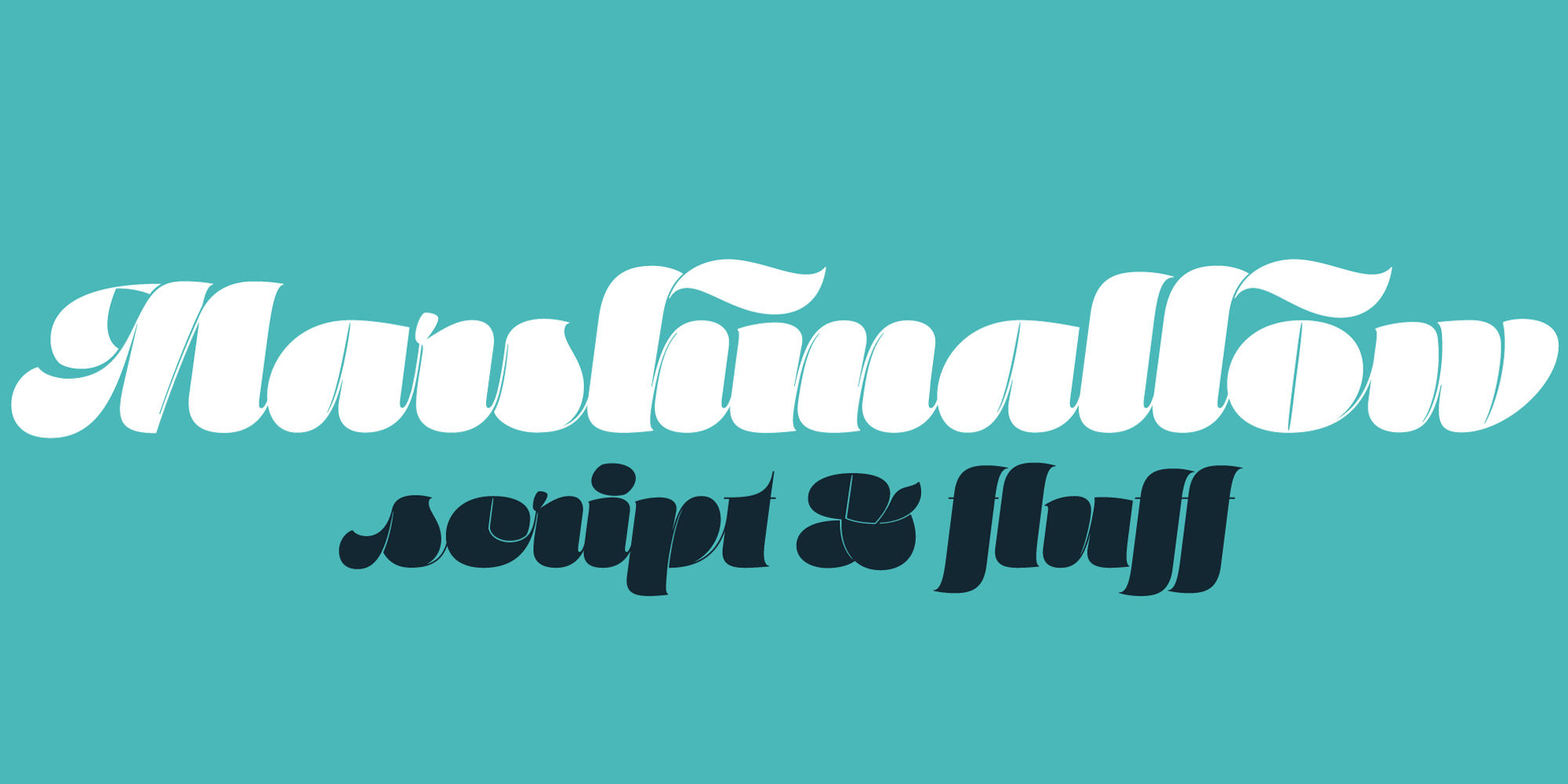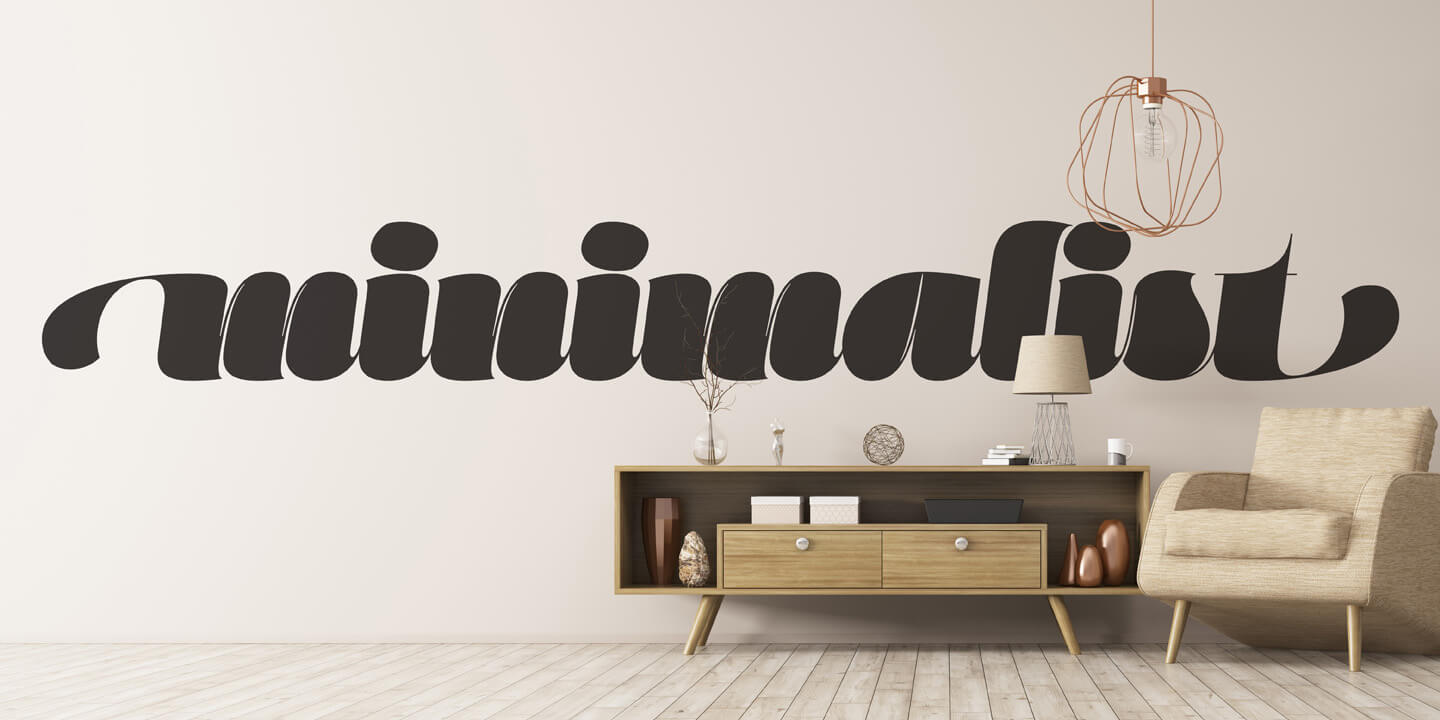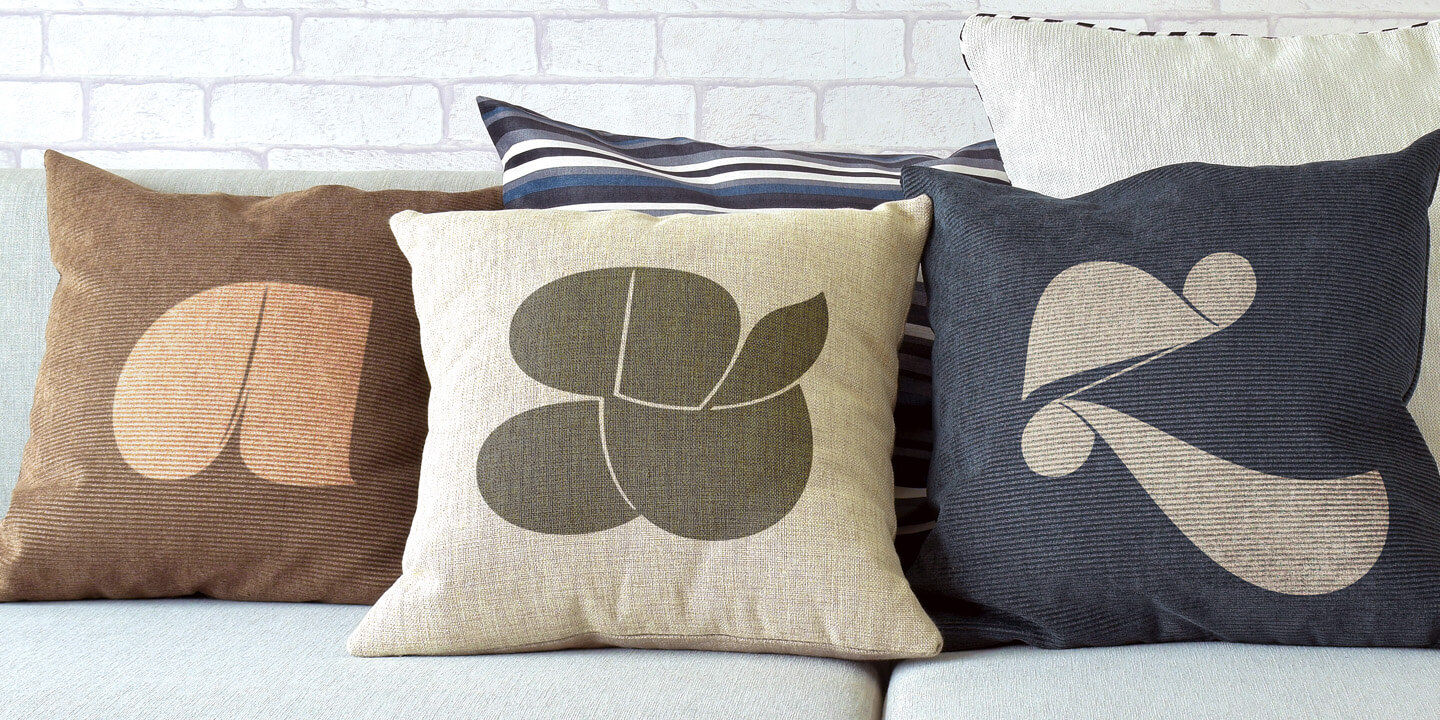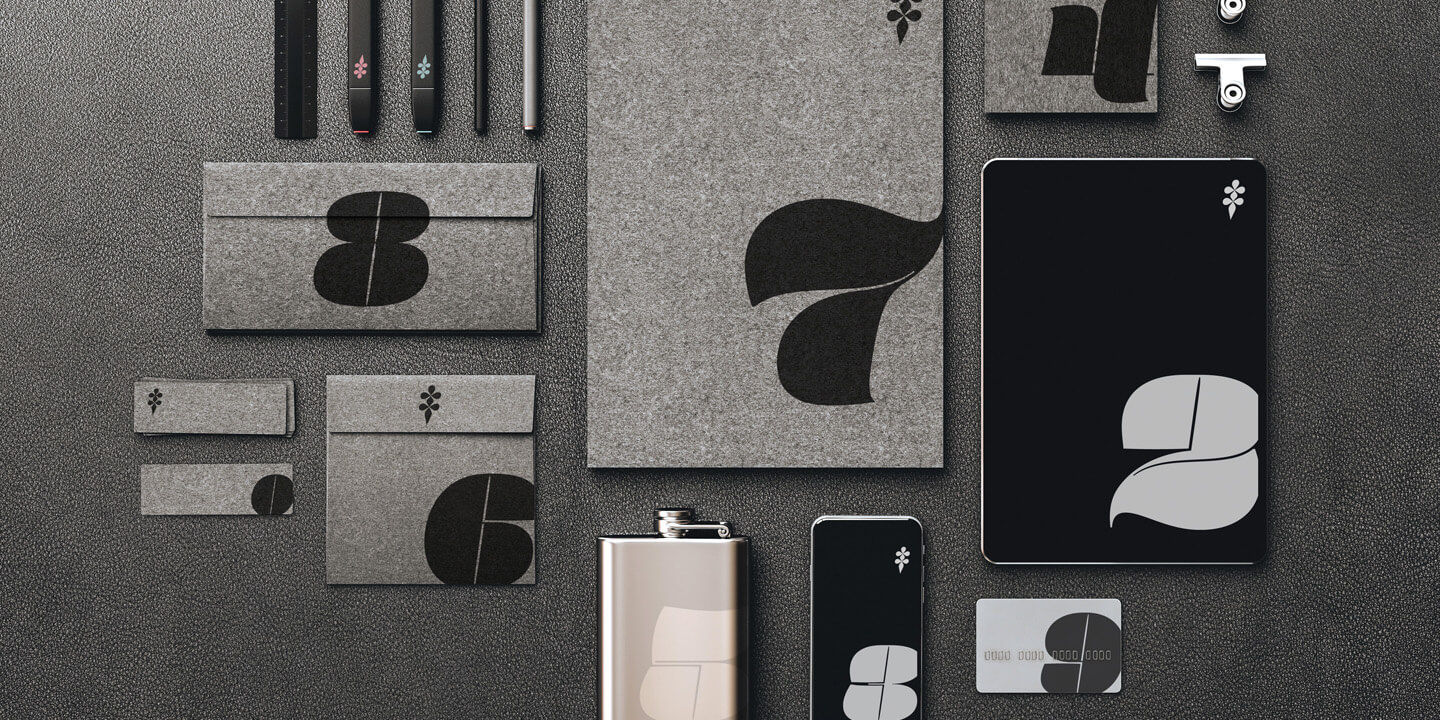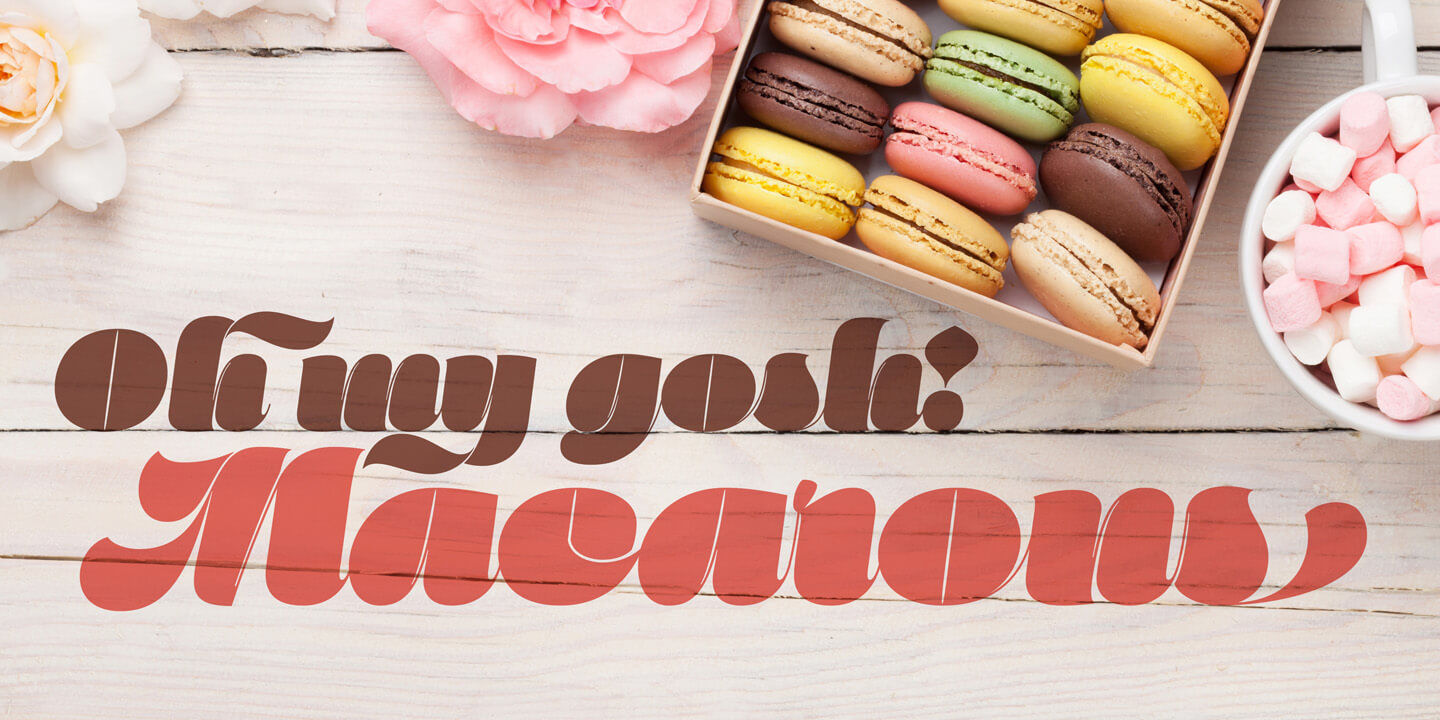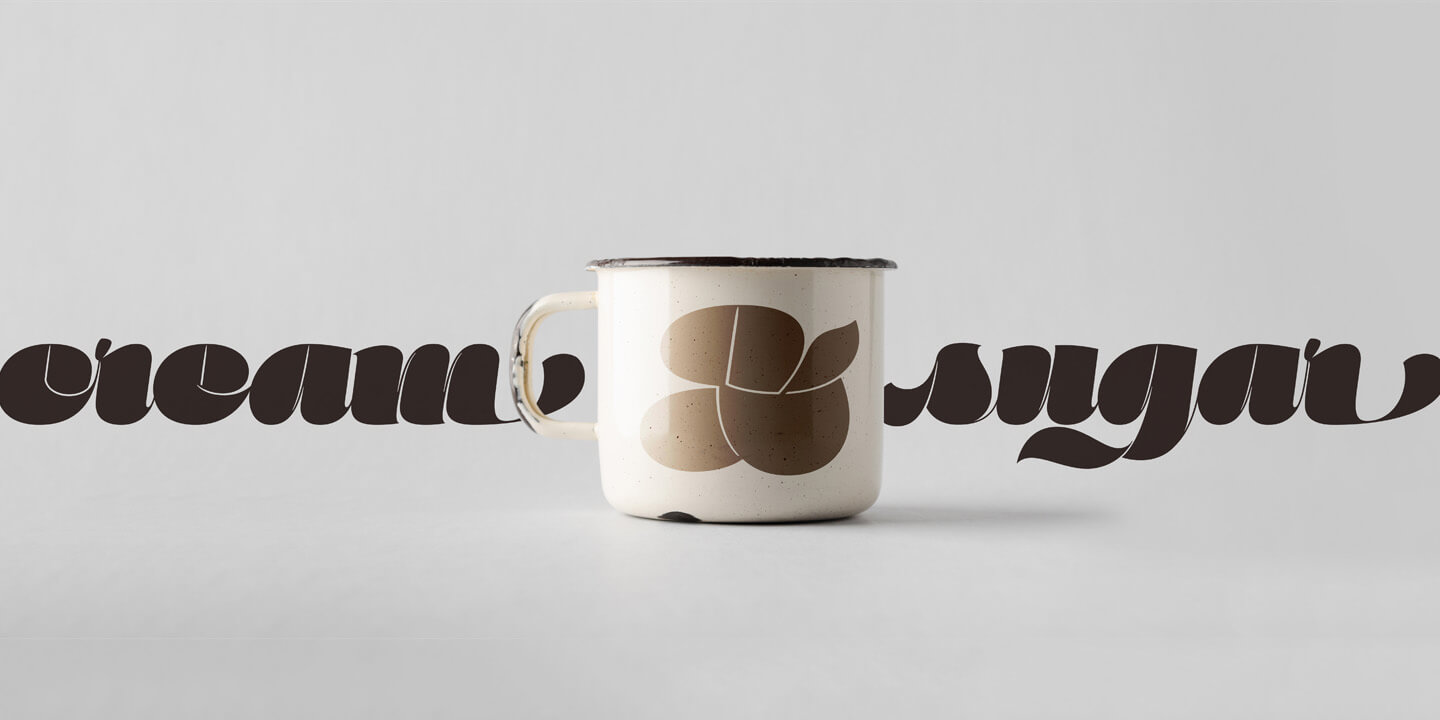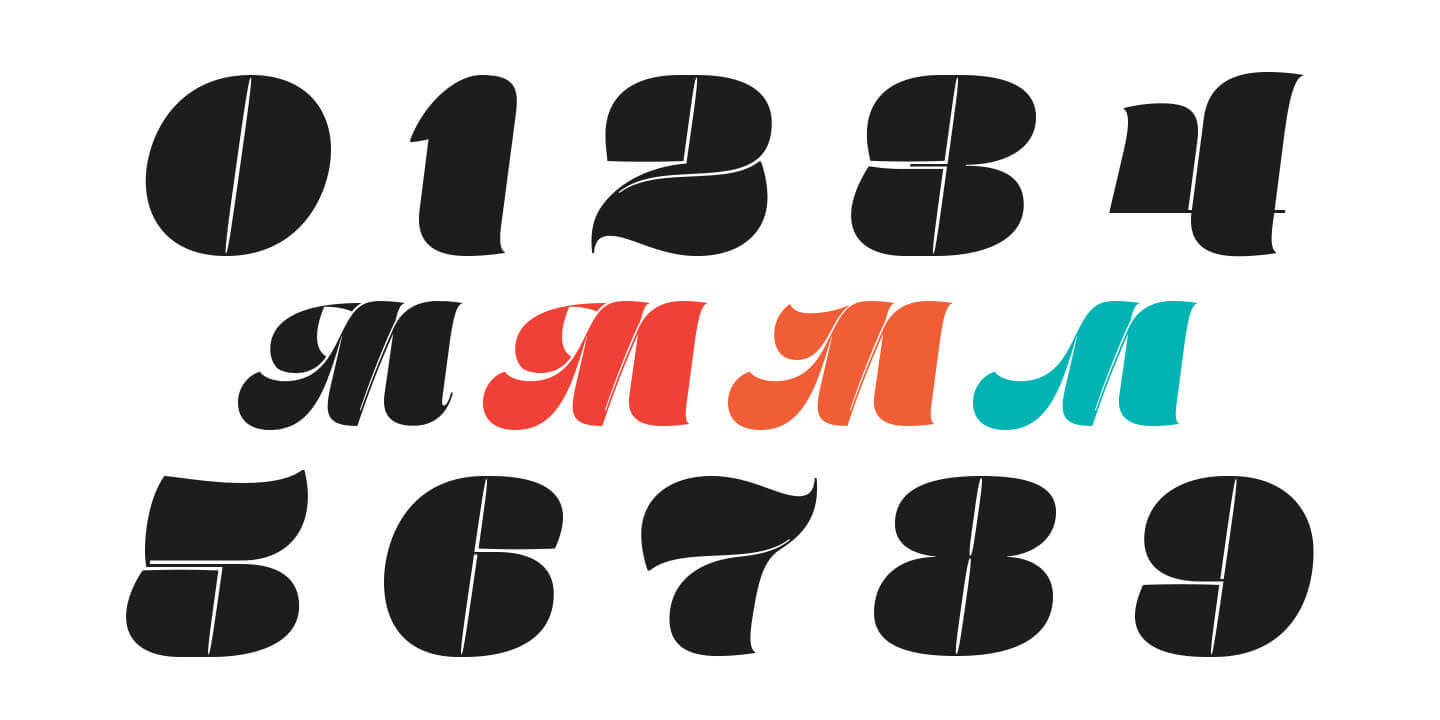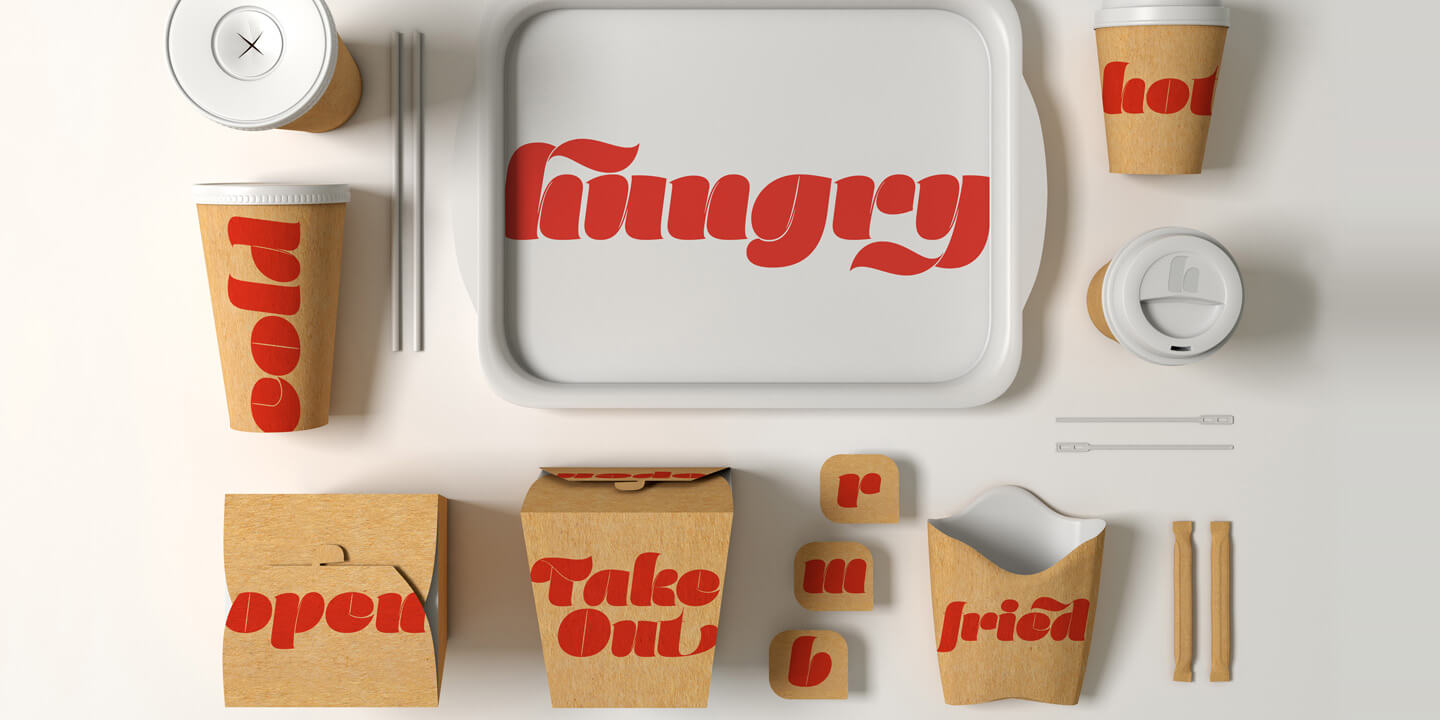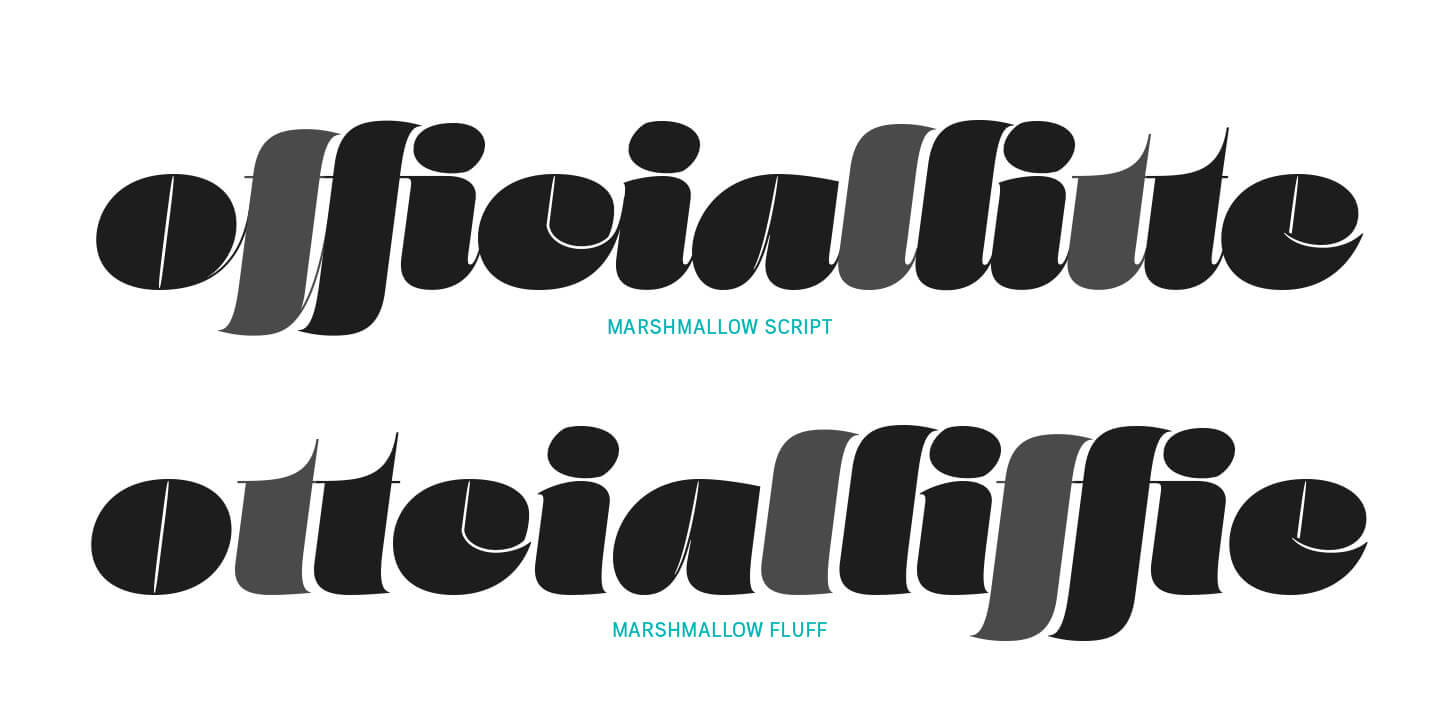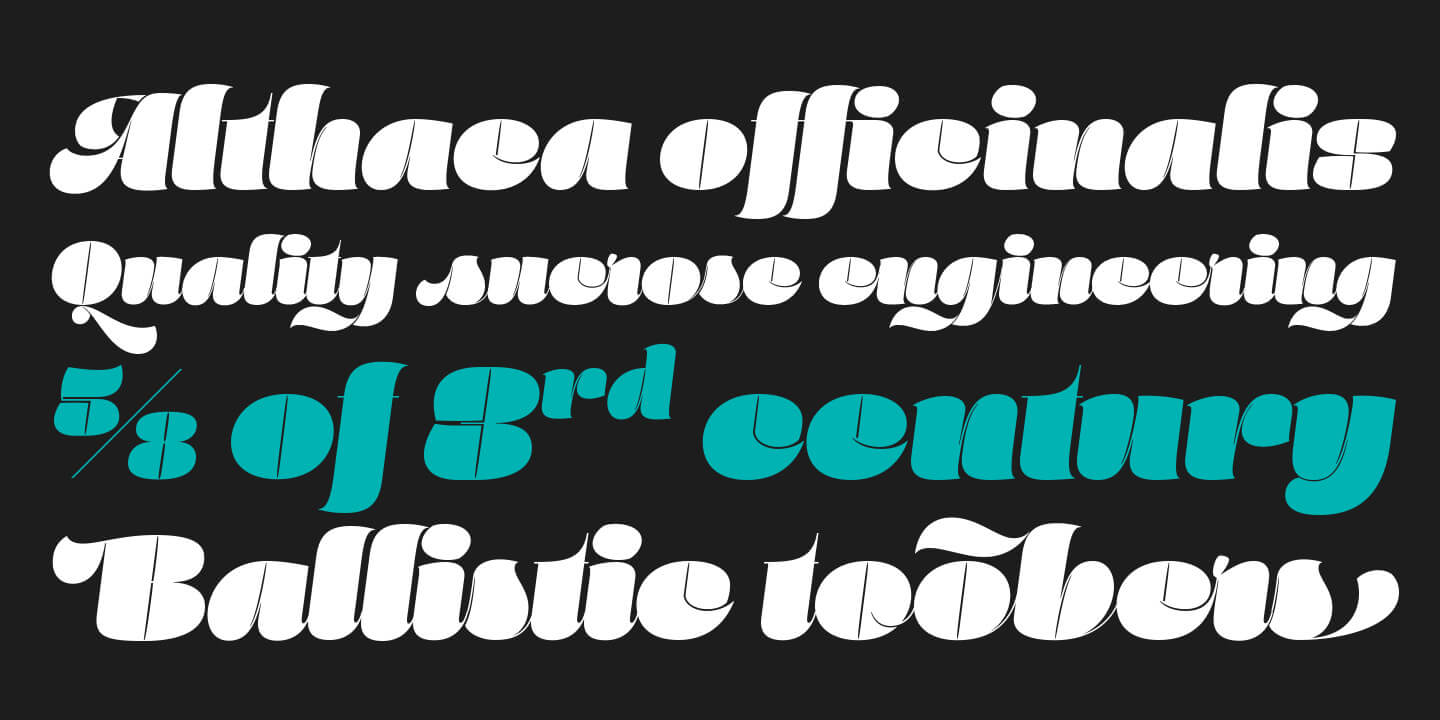
Marshmallow
ScriptFluff
Standard Ligaturesliga
Swashswsh
Titling Alternatestitl
Stylistic Alternatessalt
Fractionsfrac
Superscriptsups
Ordinalsordn
Stylistic Set 1ss01
Stylistic Set 2ss02
Stylistic Set 3ss03
A type of confectionery that is typically made from sugar, water and gelatin whipped to a squishy consistency
Marshmallow is a fun, fat, super high-contrast script typeface in two variants. A slick connected (Script) and a mellow unconnected (Fluff) style that provides the versatility you need regardless of the display usage you plan.
Marshmallow Script tops out at 820 characters, and both fonts feature a wide array of swash and stylistic alternates that complement the other, with varying options in the three additional stylist sets, titling alternates, ligatures and contextual ligature combinations. The fonts even contain ordinals, superior and inferior numerals, OpenType-generated fractions. All of these extras are produced with a sense of decadence and fun to expand the possible uses of the typeface. It can’t be used everywhere, but when it is used, it should be used with indulgent abandon… which is pretty much what happens any time we take a soft, gooey bite into marshmallow now, right?!